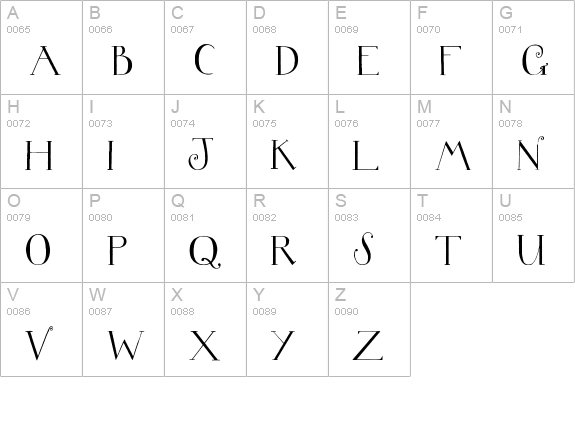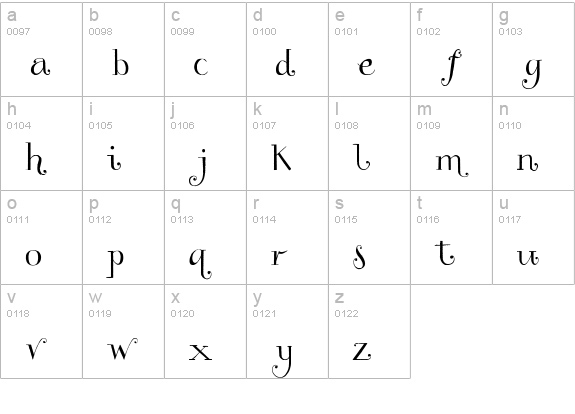
Introducing Three Dates, One Night font, a captivating and versatile typeface that effortlessly combines elegance with a touch of playfulness. This font is perfect for adding a touch of charm to your designs, whether it's for invitations, branding, or any creative project that demands attention. With its carefully crafted curves and stylish letterforms, Three Dates, One Night font exudes an air of sophistication and modernity. Its unique and eye-catching design will leave a lasting impression on your audience, making it an ideal choice for any design that aims to stand out from the crowd. But what sets Three Dates, One Night font apart from other fonts? It's not just its stunning aesthetics, but also the fact that it is freely available to download at FontsMarket.com. Yes, you read that right! This font is completely free, allowing you to incorporate it into your designs without breaking the bank. Whether you're a professional designer or a casual enthusiast, Three Dates, One Night font is a must-have in your font collection. Its versatility and timeless appeal make it suitable for a wide range of projects, from wedding invitations to social media graphics. So why wait? Head over to FontsMarket.com now and download Three Dates, One Night font for free. Elevate your designs with this stunning typeface and let your creativity soar.